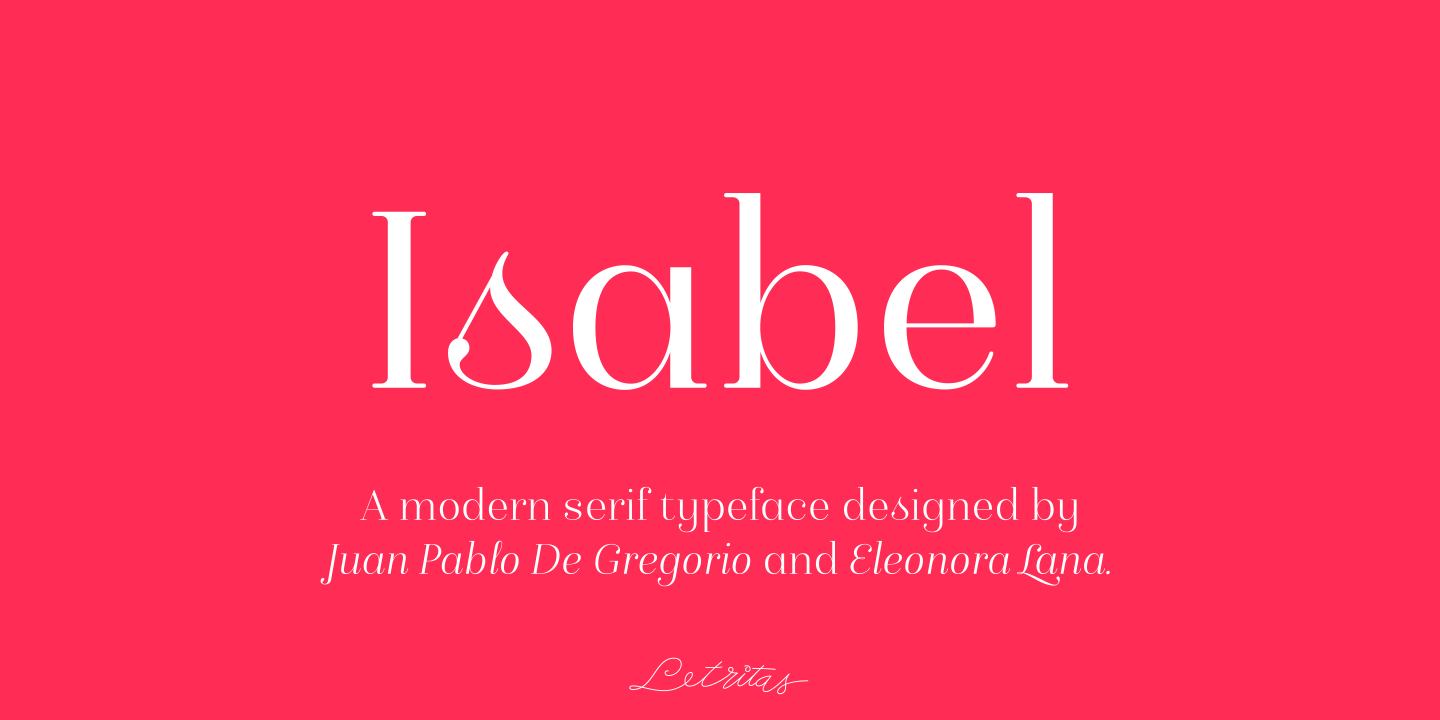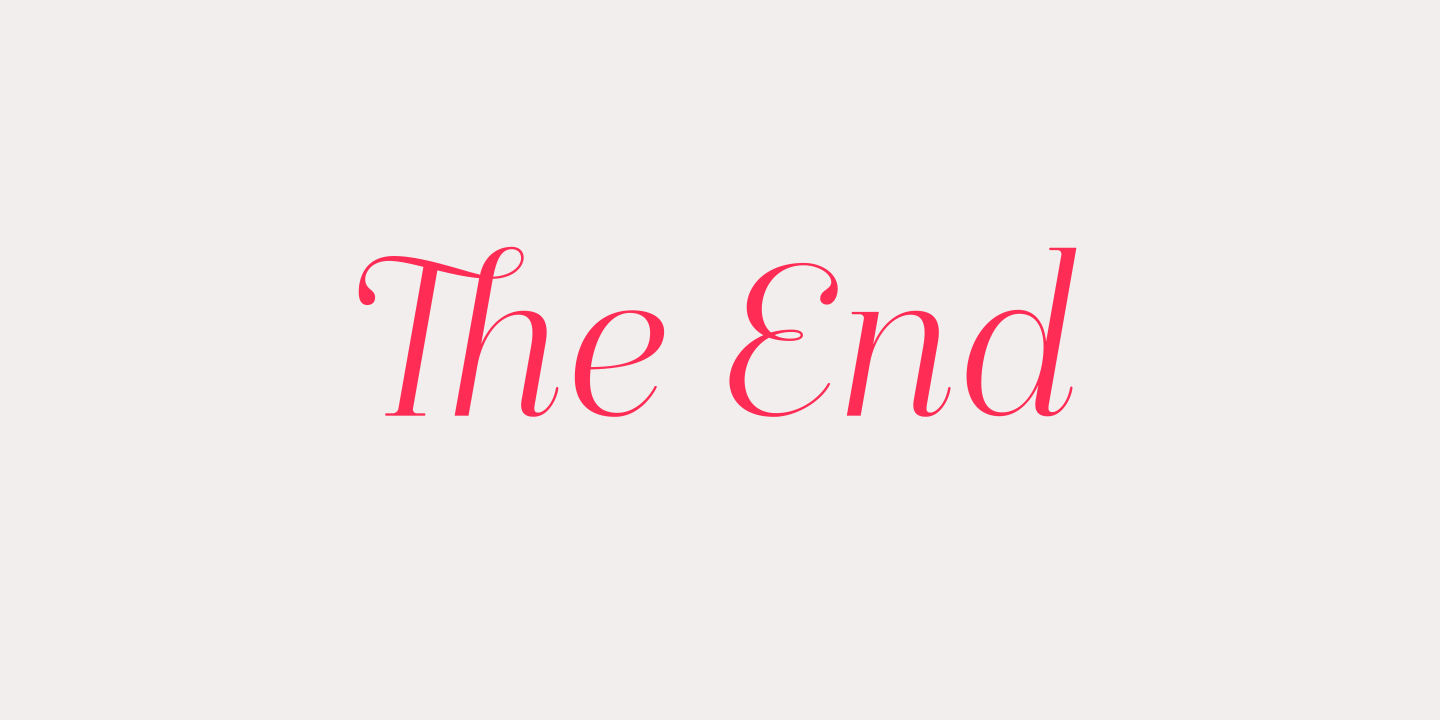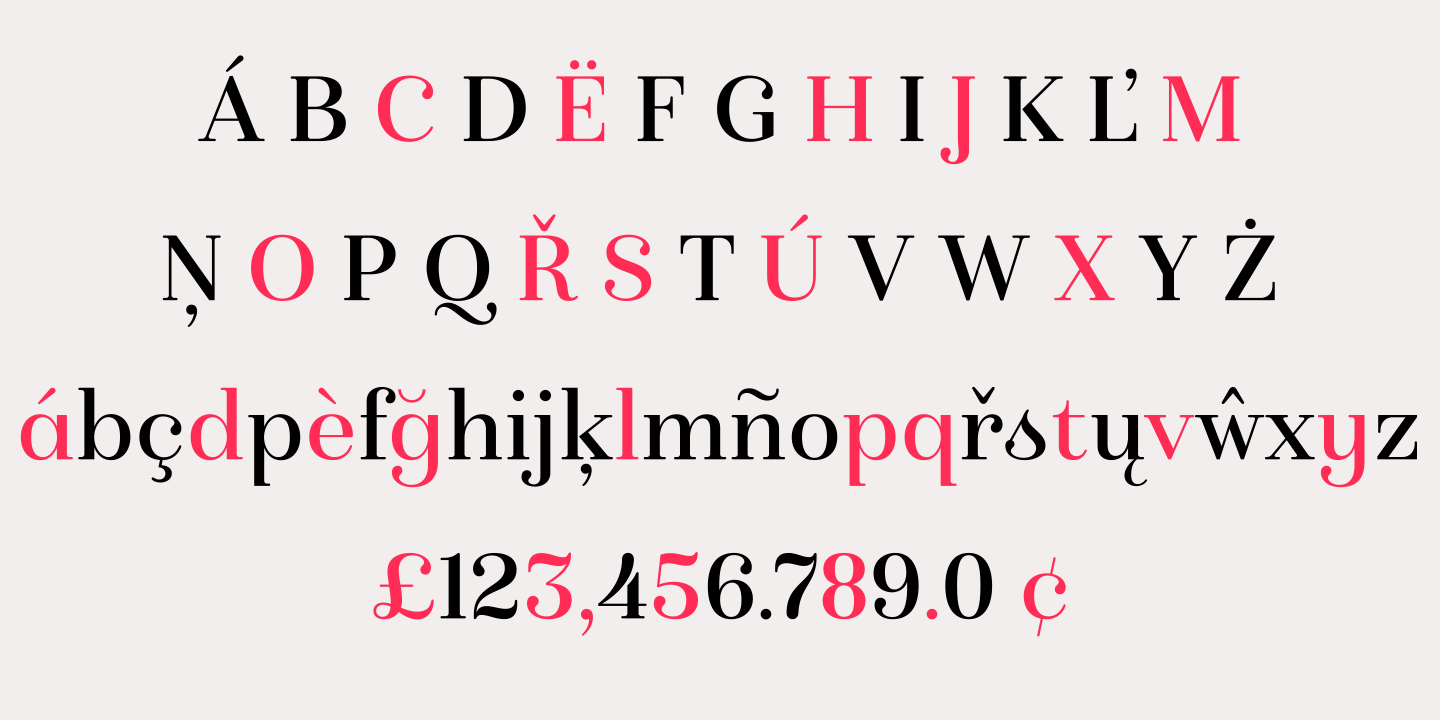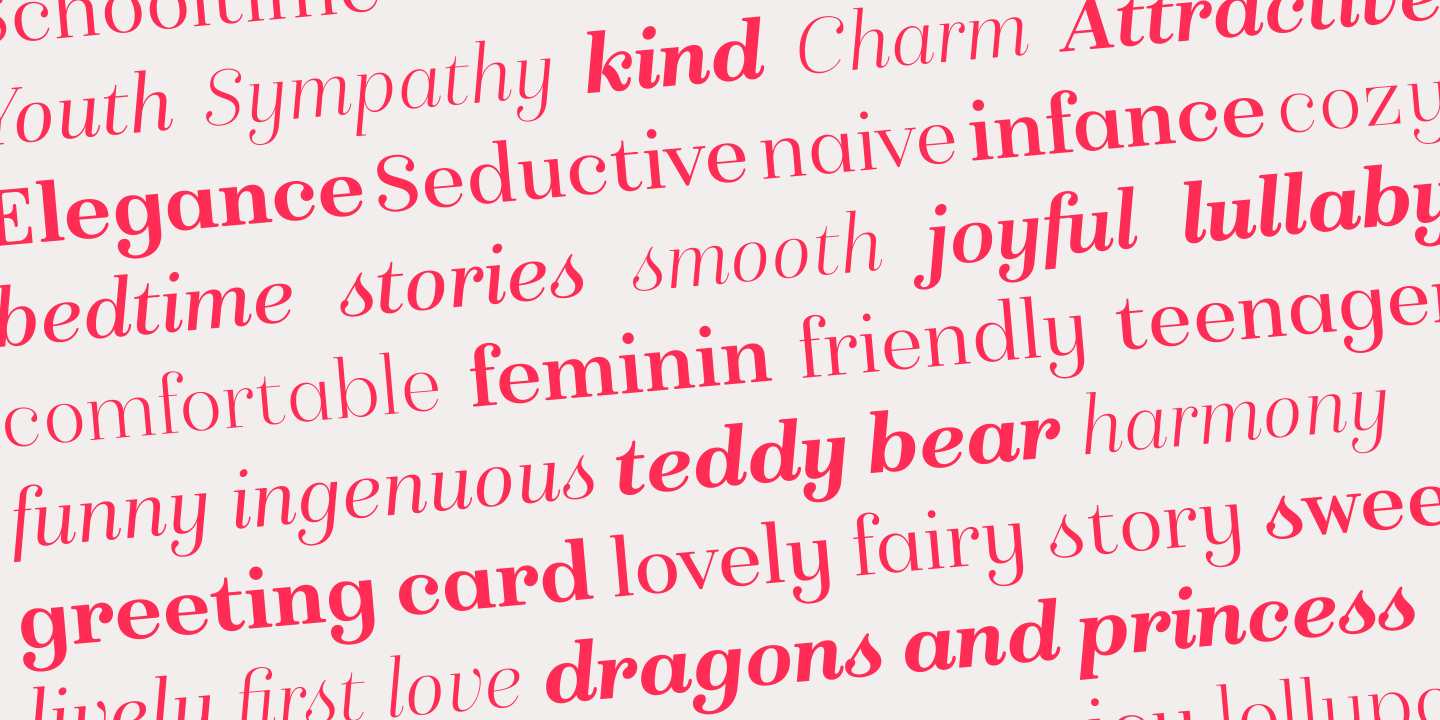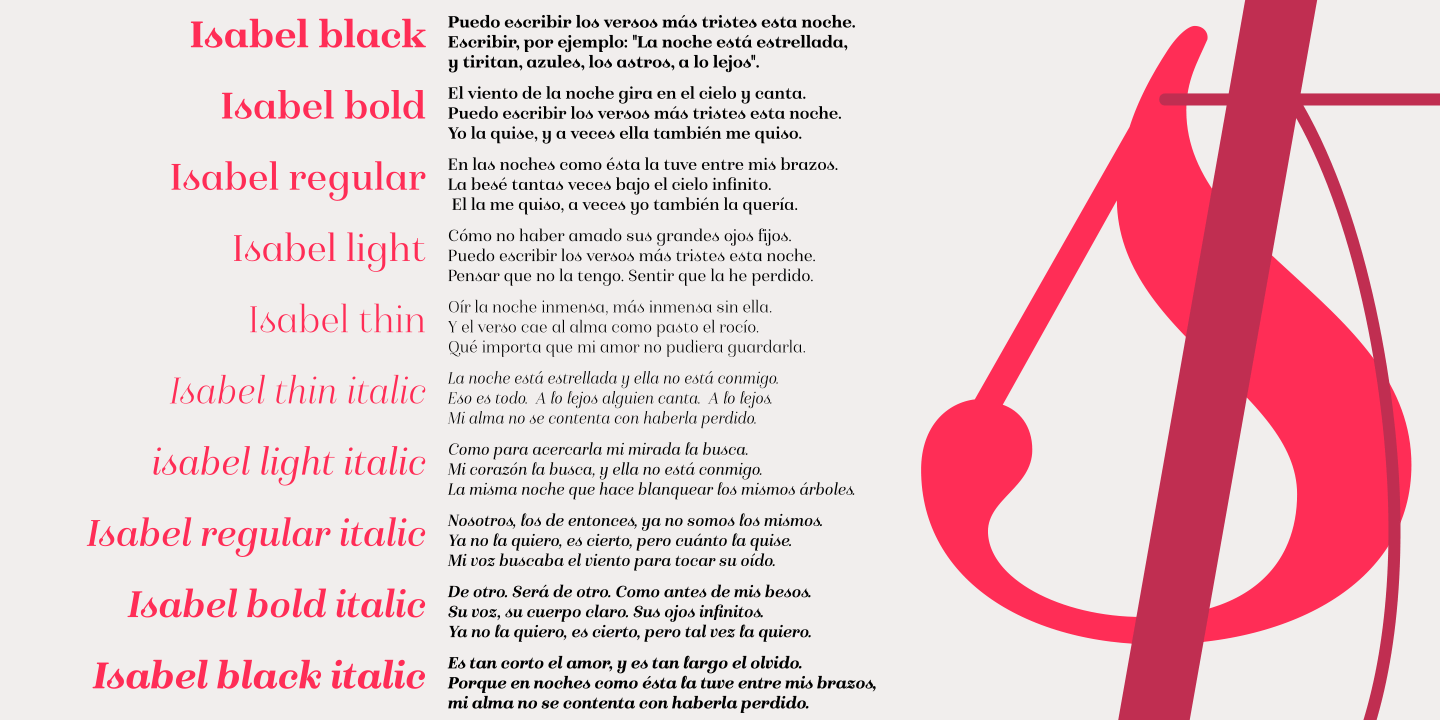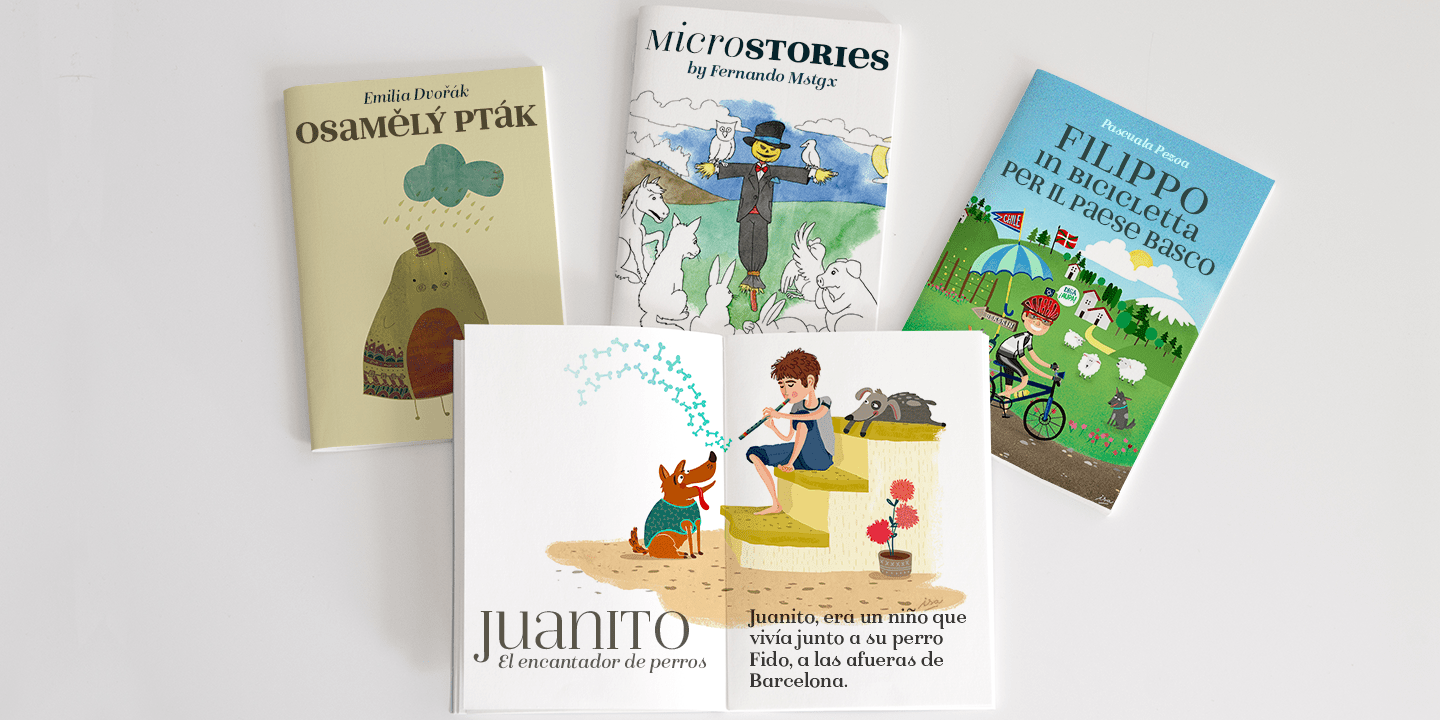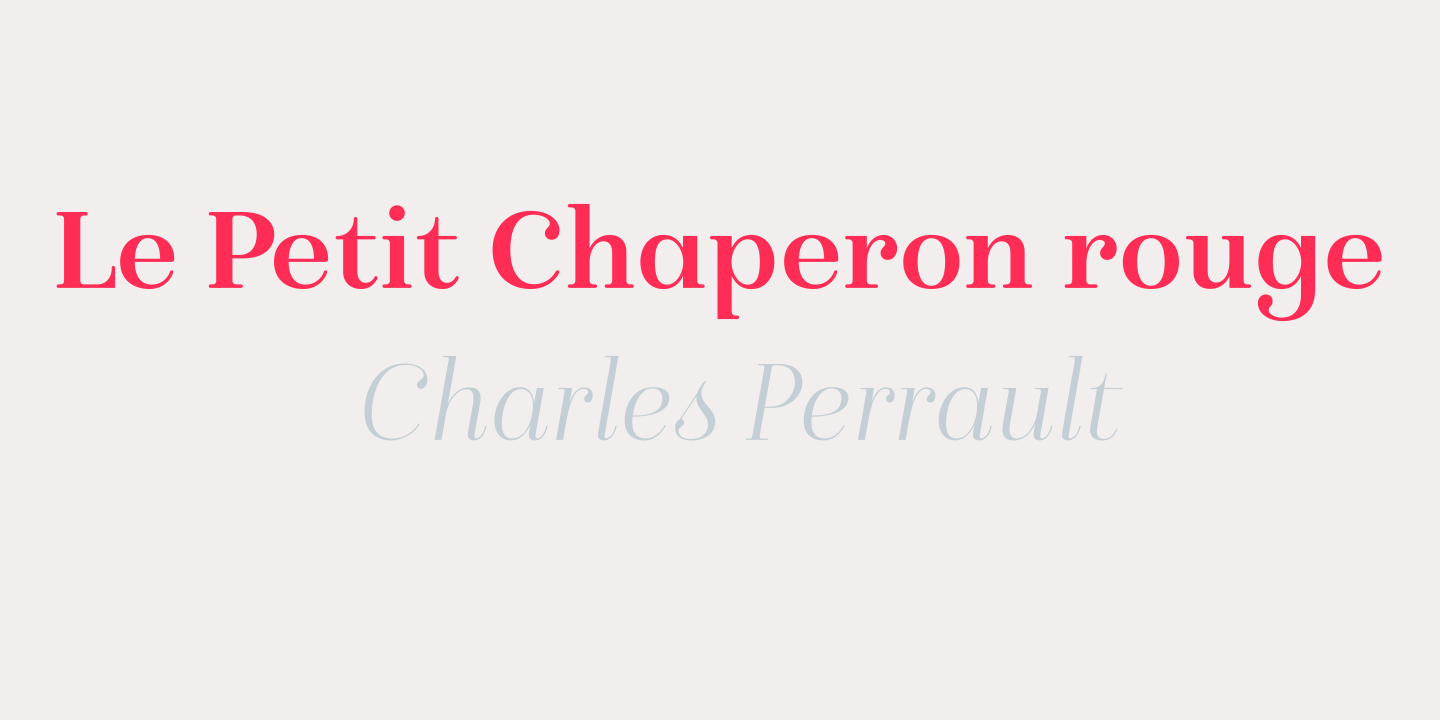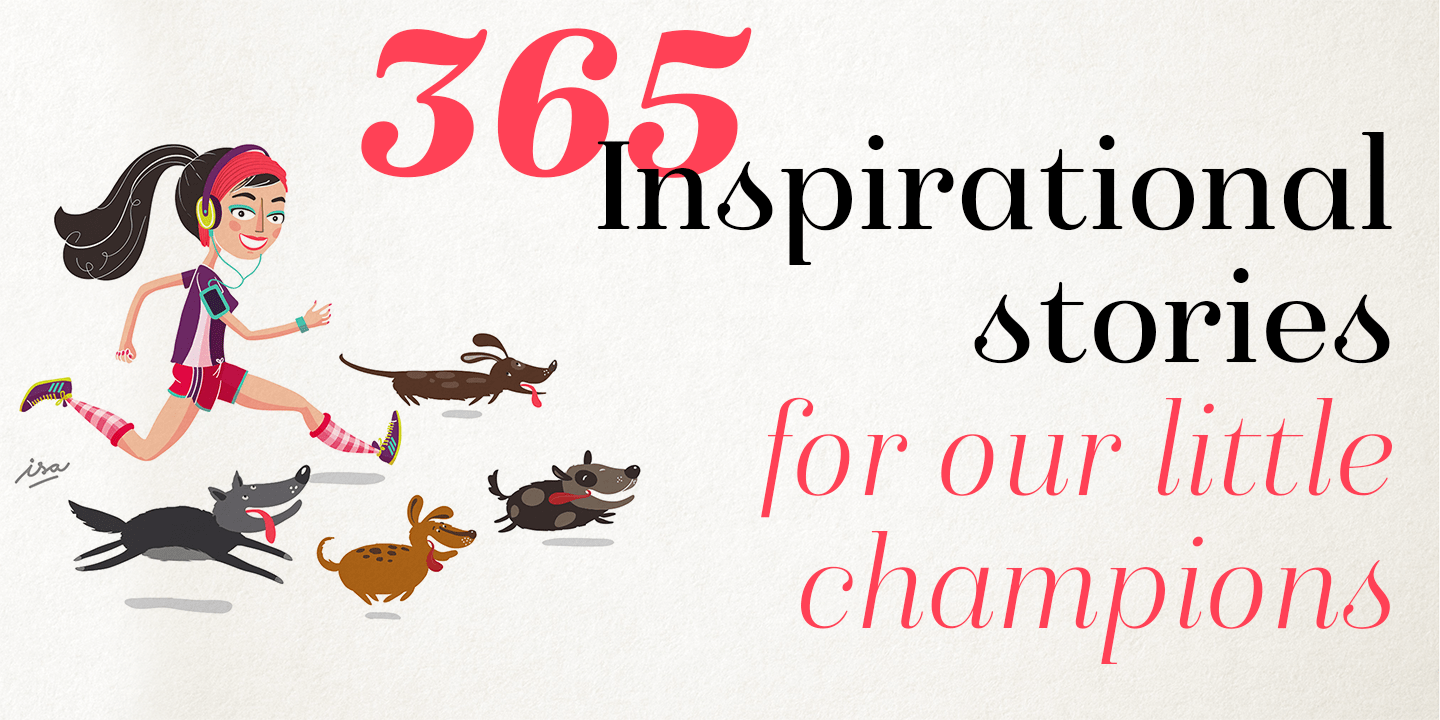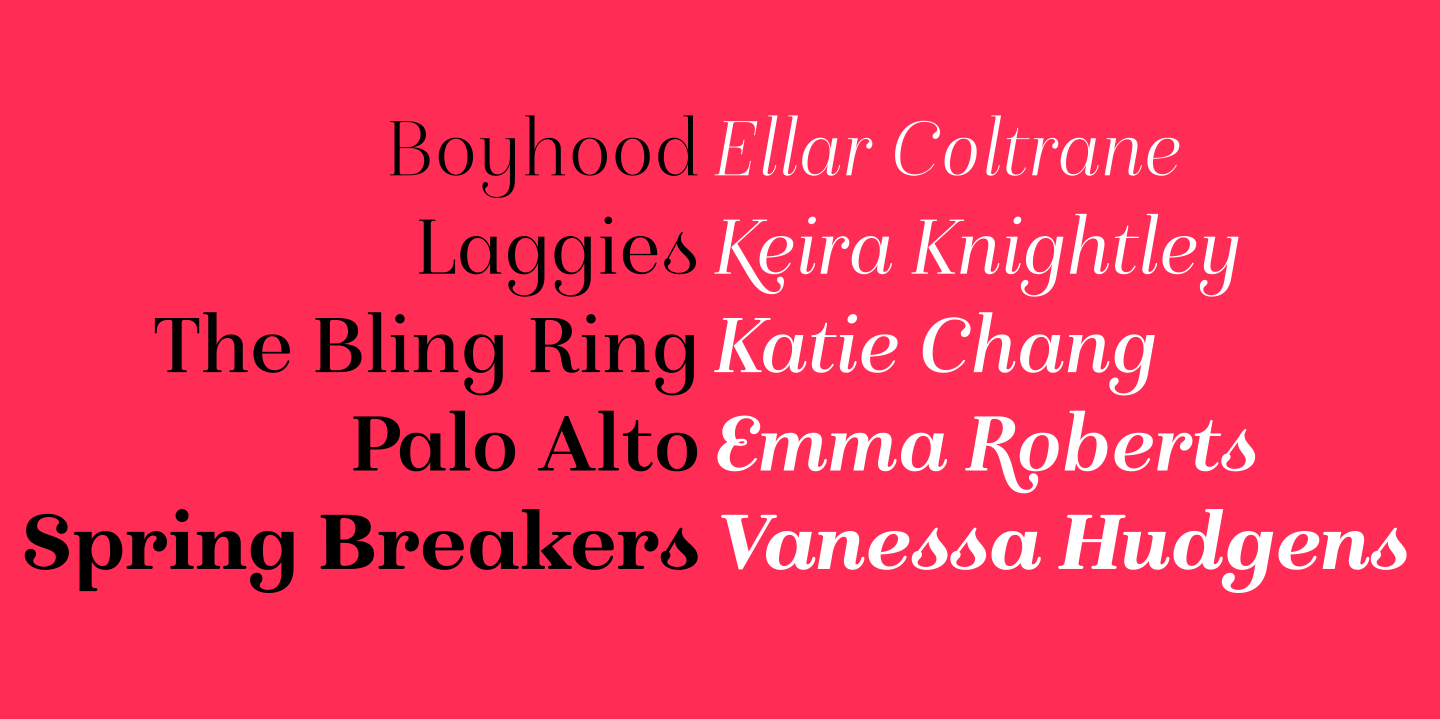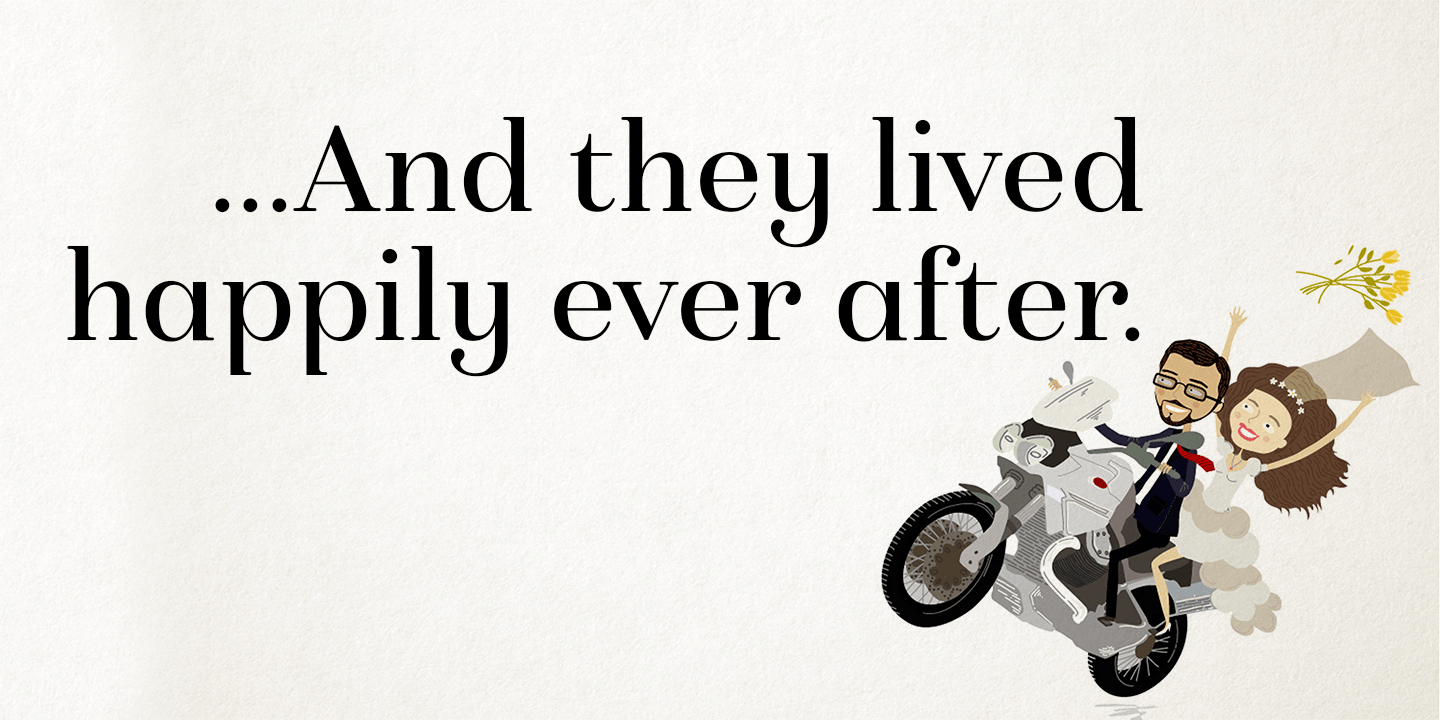
Isabel
Isabel was made out of necessity to create a new font for children and teenagers, that could be enough friendly and versatile for text in words or even easy-to- read long texts.
The purpose of Isabel is to combine all the nice and friendly features of the simple letters that the teachers teach to the pupils at primary school, as they starting to learn to read, together with the normal editorial fonts we read every day. In this way it generates a very joyful serif font, or even friendly font, with some conservative aspects. In other words, Isabel is a font that, despite of being a 'classic features' typography, is proud to show its innocent and ingenuous elements, this gives to the font a new point of view.
The family is composed of 3 parts: the regular version, the italic version and the unicase version.
Each one of them has 5 weights, 551 characters and is composed of 208 languages.